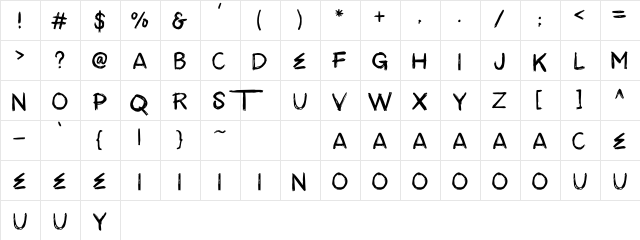
ANTREH - DEMO Regular
| Designer | Sigit Dwipa |
Design Context for ANTREH - DEMO Typeface
ANTREH - DEMO takes a measured approach to typography — its balanced proportions and neutral character make it a reliable workhorse for both digital and print work.